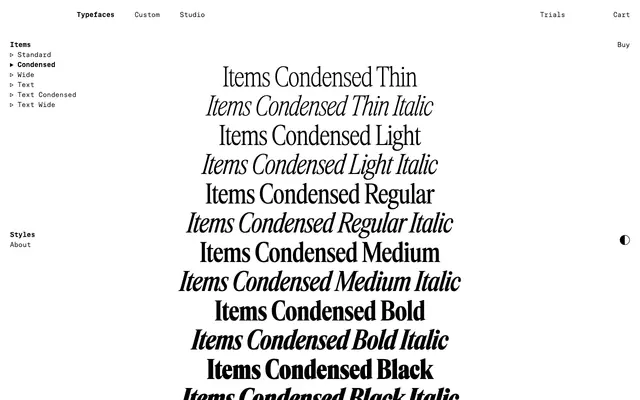
Items Condensed
The condensed display cut of the Items system: a tight transitional serif for headlines, with a Condensed Black that nods to the Times variant on Fleckhaus paperbacks.
Items Condensed is the condensed width of the Items display branch, with a tight letter fit and tapered joints aimed at larger sizes. Six weights from Thin to Black with matching italics give it the range to handle headlines, mastheads and packaging where horizontal economy matters. The Condensed Black in particular is described by the foundry as having qualities similar to the punchy Times variant seen on paperback designs by Fleckhaus. It sits inside a wider Items system that also extends into Standard and Wide widths and into the Items Text branch for body sizes.
The Condensed width of Items, the display branch of the Items system; tied to early-digital serifs (Times, Garamond, Goudy) and built on a consistent contrast axis with constant top-serif angle.